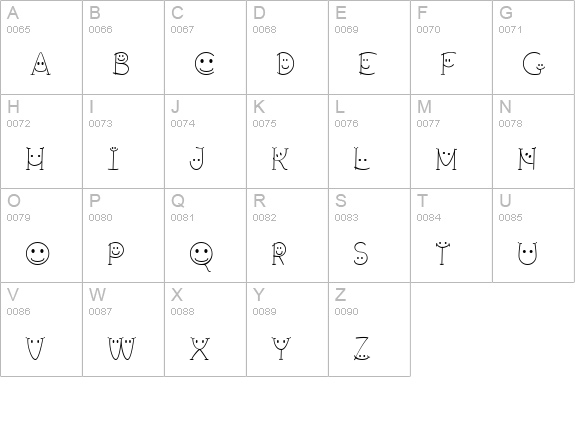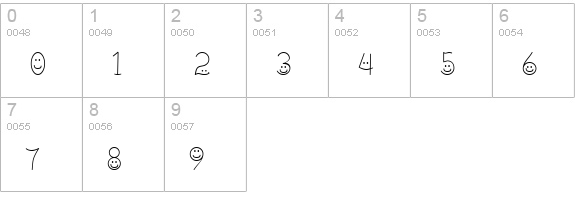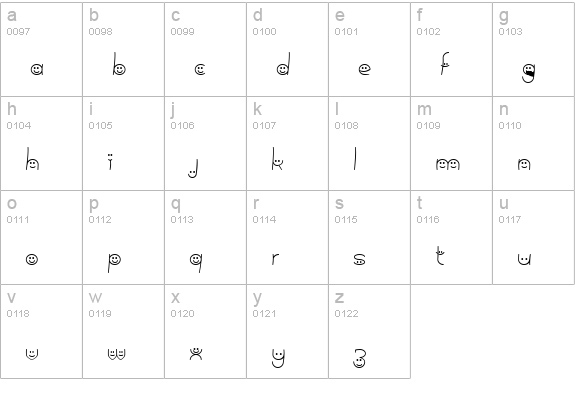
AllSmiles Font Details
Introducing AllSmiles font, a charming and whimsical typeface that will bring joy and playfulness to your projects. This delightful font features a unique blend of rounded edges and friendly curves, making it perfect for a wide range of design applications. Whether you're creating greeting cards, logos, posters, or social media graphics, AllSmiles is sure to add a touch of cheer to your work. Best of all, AllSmiles font is completely free to download at FontsMarket.com. Yes, you read that right - this delightful typeface is available at no cost, allowing you to unleash your creativity without breaking the bank. So why wait? Download AllSmiles font today and spread happiness with every letter you type.